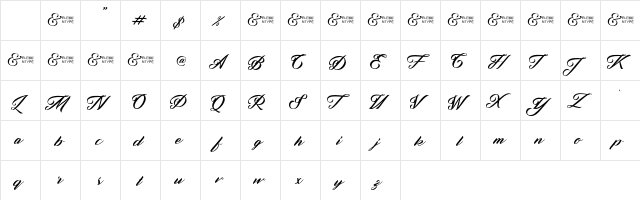
Complete Zephan Demo Ver. Regular glyph index. Displaying only characters natively supported by Zephan Demo Ver. Regular font.
Zephan Demo Ver. is a composed and adaptable typeface that performs quietly and consistently across a wide range of design contexts.